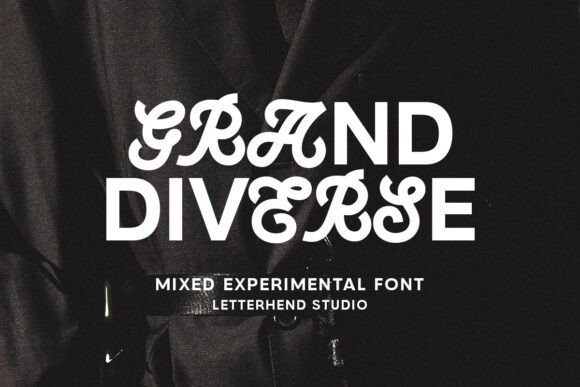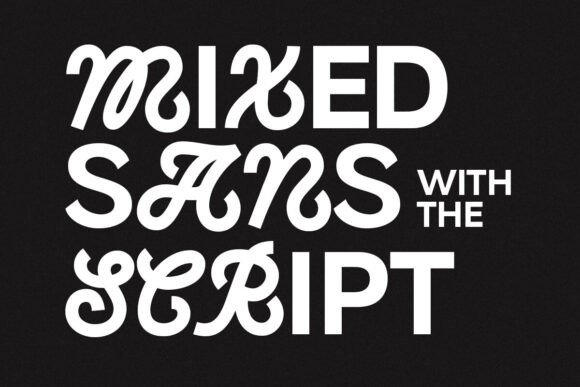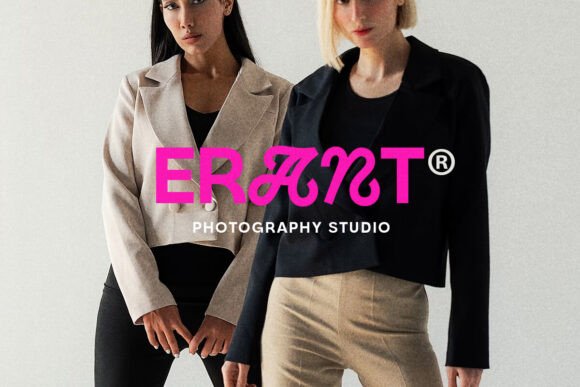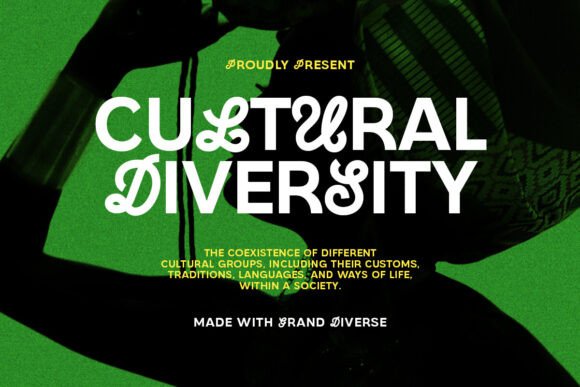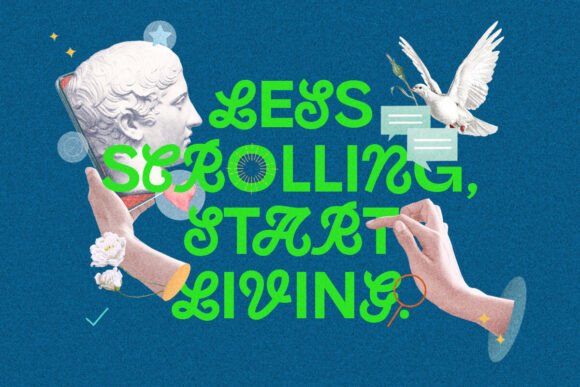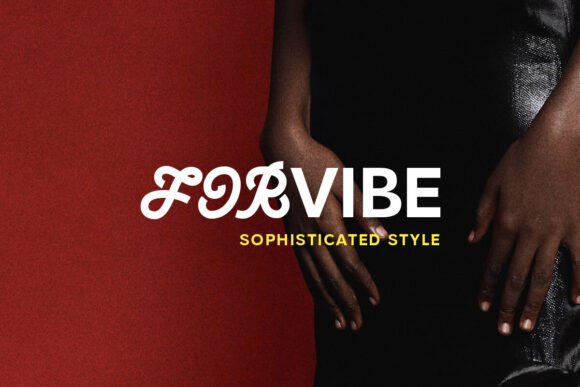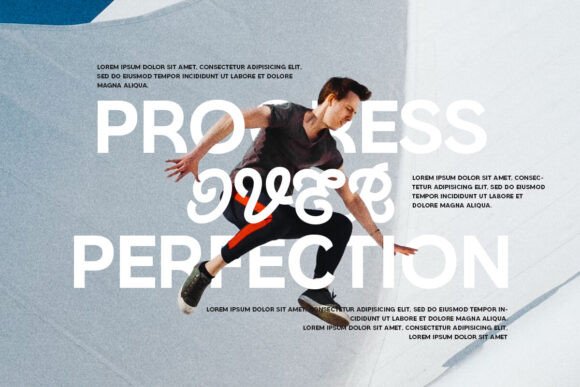
Have you ever stared at a blank page, searching for the perfect font to capture the essence of your creative vision? We’ve all been there – the struggle to find the perfect combination of style and substance that sets our work apart from the crowd. For designers seeking to add an extra layer of sophistication and playfulness to their projects, the solution lies in the Grand Diverse Font – a bold and experimental mixed-style font that combines elegant curves with geometric forms.
This versatile font is a game-changer for creative projects, from branding and headlines to posters and editorial designs. Its modern-vintage vibe makes it an ideal choice for adding a distinctive and artistic touch to your work. Whether you’re a seasoned designer or just starting out, the Grand Diverse Font offers a unique opportunity to elevate your designs and stand out in a crowded industry.
- Font Family: Grand Diverse Font comes in three font styles: Regular, Bold, and Italic, providing users with flexibility and versatility.
- Character Set: The font includes a wide range of characters, including Latin, Cyrillic, and Greek alphabets, as well as punctuation and special characters.
- Unique Characteristics: Grand Diverse Font features a unique blend of modern and traditional elements, with subtle nuances in letterforms and spacing, making it ideal for designs that require a touch of sophistication and elegance.
Review of Grand Diverse Font
Overall, I found Grand Diverse Font to be a unique and versatile choice for various design projects.
Here are some of the things that work well: ✨
- Legibility: The font is highly legible in both print and digital formats.
- Customizability: Grand Diverse Font comes in a wide range of styles and weights, making it easy to customize for different design needs.
- International Support: The font includes a vast character set, making it suitable for projects requiring multiple languages.
However, I did encounter some limitations: ⚠️
- Complexity: While the font is customizable, its complexity can make it difficult to use for beginners.
- Compatibility Issues: I experienced some compatibility issues with certain software and operating systems.
Overall, I think Grand Diverse Font is a solid choice for designers who need a versatile and highly legible font. However, it may not be the best fit for beginners or projects requiring simple, straightforward design.
The Grand Diverse Font is ideal for use in a variety of applications, including:
- Corporate branding and identity
- Editorial and publishing content
For the best results, use the Grand Diverse Font in conjunction with other high-quality fonts and design elements.
The Grand Diverse Font is commonly used in:
- Body text
Alternatives to “Grand Diverse Font” for Designers
Playfair Display is an elegant, high-end serif font that works well for luxury brands, magazines, and high-end websites. It’s perfect for creating a sense of sophistication and refinement.
Comparison to Grand Diverse Font: While both fonts are elegant and refined, Playfair Display has a more classical and traditional feel, whereas Grand Diverse Font has a more modern and diverse aesthetic.
Lato is a clean and modern sans-serif font that’s perfect for creating a friendly and approachable brand identity. It’s great for use in logos, headings, and body text.
For optimal readability, we recommend using font sizes between 10-24 points and line heights between 120-150% of the font size. However, these values may vary depending on the specific design context, including the font style, text content, and target audience. Experiment with different font sizes and line heights to find the optimal balance for your design.